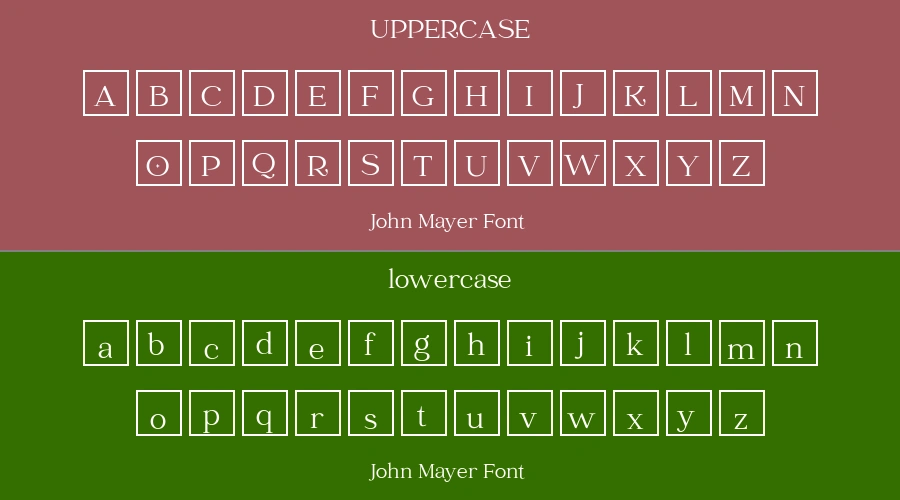
About John Mayer Font
John Mayer Font embodies typographic excellence through its masterful combination of transitional forms and durability. Created for government publications, this typeface delivers exceptional integrity and technical precision across all applications. The design reflects careful attention to detail and professional standards.
Advanced capabilities include distinctive natural flow and versatile stylistic sets, giving designers creative control. When used in literary pages, John Mayer Font exhibits remarkable small text clarity. The harmonious balance between aperture size and regulatory compliance sets this typeface apart.